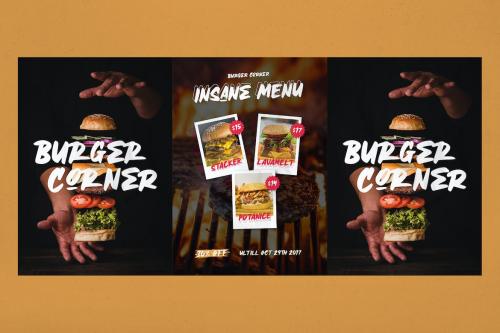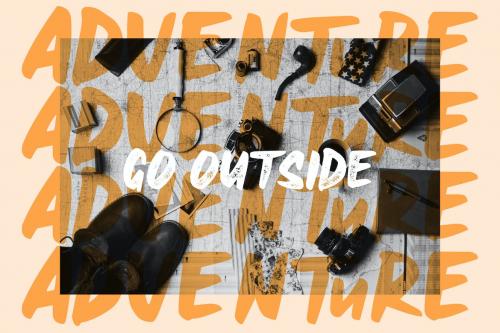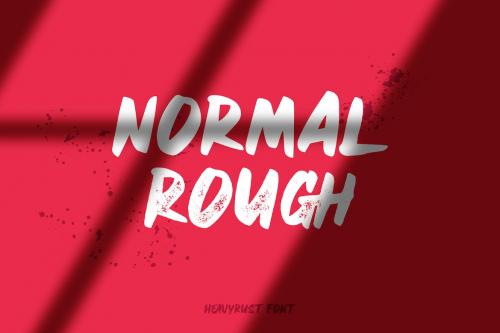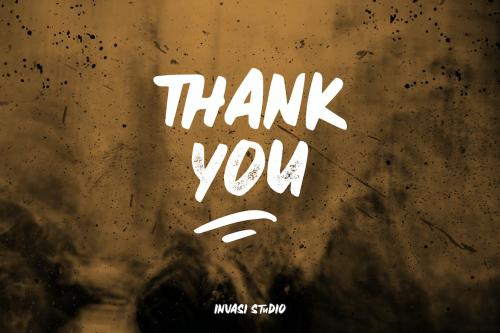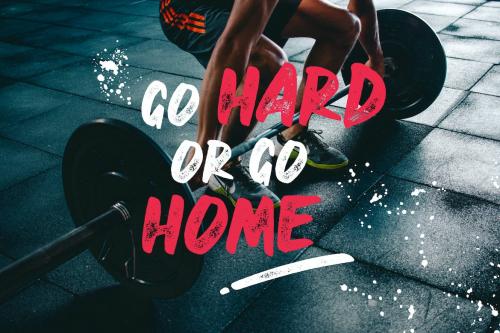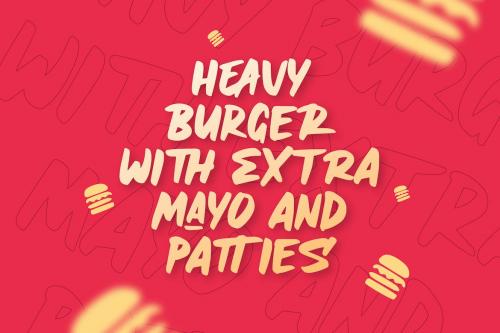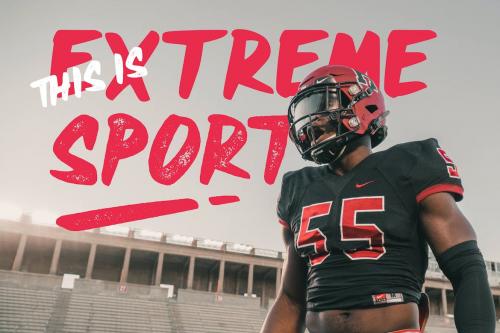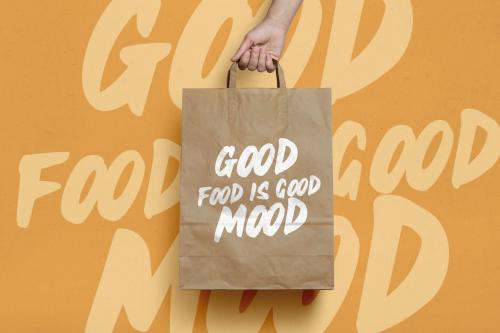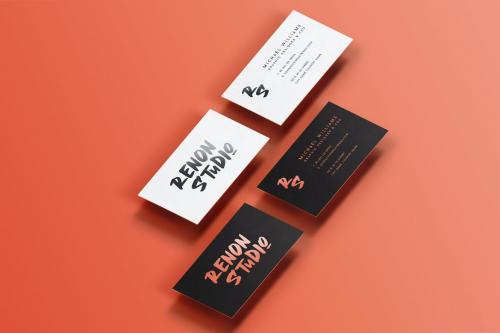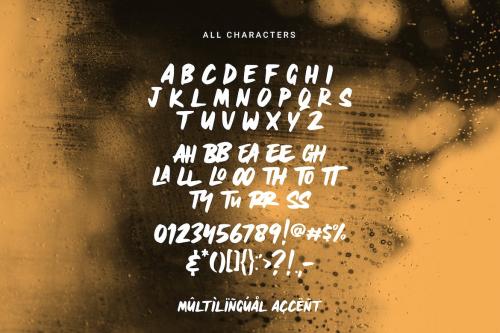
重型锈 | 展示字体
Heavyrust | Display Font
**Heavyrust is All Aggressive with Brush style font special for your Display Design**, which puts a bold on your projects and will inspire you to create something strong and aggressive. Heavyrust will help you to create special and touching typographical designs for bold or strong projects, It is perfect for headings, flyers, greeting cards, product packaging, book cover, printed quotes, logotype, apparel design, album covers.
**Heavyrust is All Aggressive with Brush style font special for your Display Design**, which puts a bold on your projects and will inspire you to create something strong and aggressive.
Heavyrust will help you to create special and touching typographical designs for bold or strong projects, It is perfect for headings, flyers, greeting cards, product packaging, book cover, printed quotes, logotype, apparel design, album covers.
**Features:**
* Multilanguage
* Ligatures
* Alternates
* Punctuation